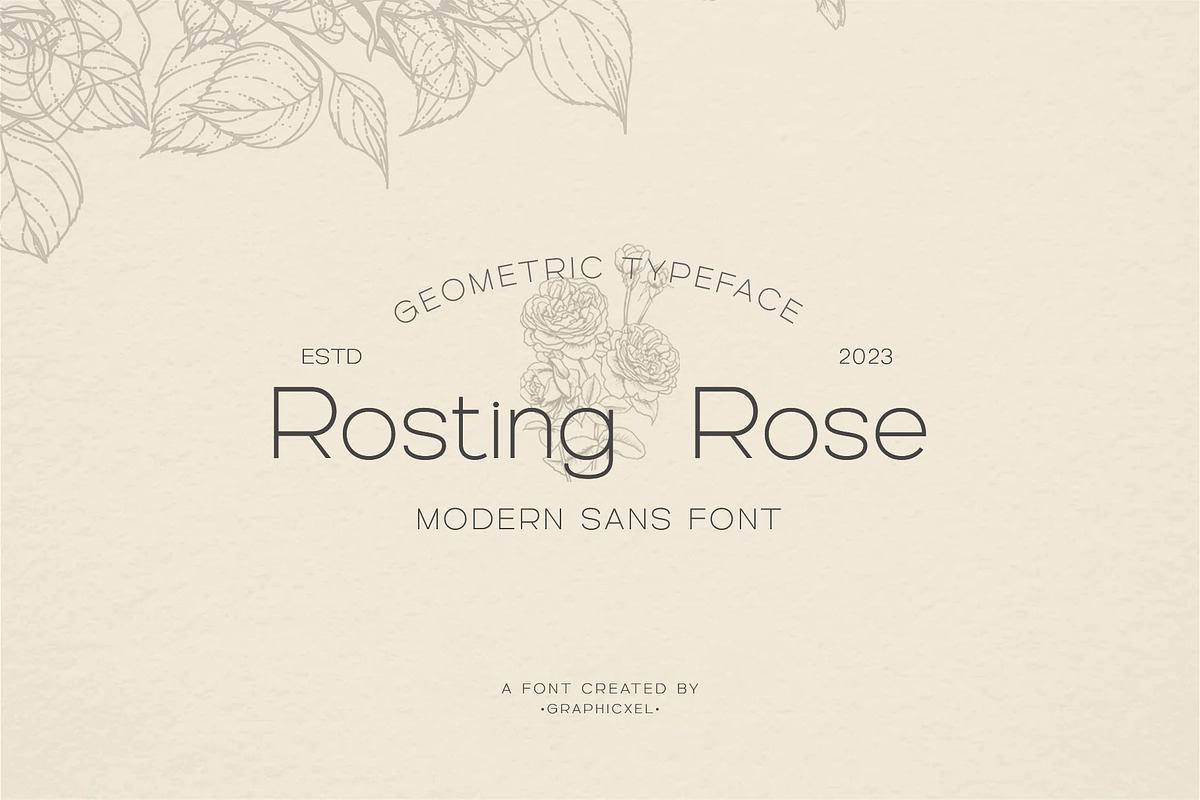
Rosting Rose Modern Sans Serif Font Free Download
Rosting Rose Modern Sans Serif Font Free Download is a simple and elegant sans-serif typeface crafted by Graphicxell. With its harmonious and beautiful shape, Rosting Rose is perfect for various design projects that require a clean and modern aesthetic.
Designed by Usman Albaehaqi, Rosting Rose offers a minimalist design that enhances readability and versatility, making it suitable for branding, editorial designs, and web interfaces.